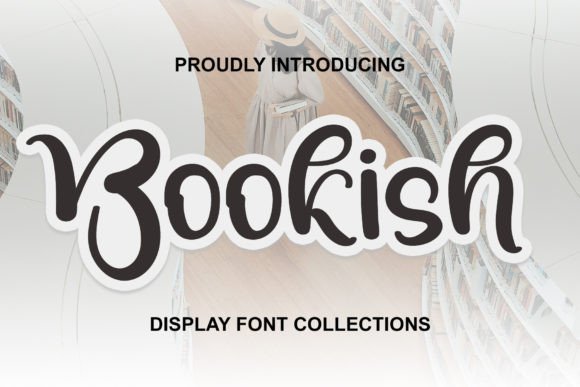
The Magic of the Holiday Season in Type
As I sat at my desk, surrounded by twinkling lights and the scent of freshly baked cookies, I couldn’t help but feel the excitement of the holiday season. It’s a time of year when creativity flows freely, and the possibilities are endless. That’s when I stumbled upon the perfect font to capture the essence of this magical time: Bookish Font.
With its playful, decorative elements and unique flair, Bookish Font is the perfect addition to any holiday project. Whether you’re designing greeting cards, gift labels, or holiday-themed decor, this font adds a touch of charm and nostalgia to your words. For designers, Bookish Font is a valuable asset, offering a festive and happy atmosphere that’s sure to delight your audience.
Bookish Font Key Features
- Font Family: Bookish is a modern script font designed to evoke a sense of elegance and sophistication.
- Character Count: The font contains 750+ glyphs, including Latin, Cyrillic, and Greek alphabets, as well as punctuation and symbols.
- Unique Characteristics: Bookish features a unique, handwritten feel with subtle flourishes and connections between letters, making it ideal for book covers, invitations, and other design projects that require a touch of personality.
Bookish Font Review
I recently had the chance to dive into the Bookish Font, and I must say it’s a unique find. The font has a certain charm that’s hard to resist.
- Unique blend of modern and vintage flair
- Excellent legibility, making it perfect for body text
- Supports a wide range of languages, including Cyrillic and Greek
- Has a great selection of weights and styles to choose from
Limited by ⚠️
- May not be the best choice for titles or headlines, as it’s a bit too playful
- Lack of italics and obliques might be a drawback for some designers
- May not be the most suitable font for digital use, due to its low x-height
Overall, the Bookish Font is a solid choice for designers looking for a unique, readable font. While it may have some limitations, it’s definitely worth considering for projects that require a touch of whimsy. With the right use, this font can add a lot of character to your designs.
To get the most out of Bookish Font, use it for:
- Book covers and book-related designs.
- Academic and research papers.
- Blog posts and articles with a vintage or literary feel.
Remember to pair Bookish Font with other fonts that complement its unique style for a visually appealing design.
Alternatives to Bookish Font
Playfair Display is an elegant, high-end serif font perfect for luxury brands, high-end fashion, or sophisticated publishing projects. It’s ideal for titles and headings where you want to make a statement. In comparison to Bookish Font, Playfair Display is more refined and luxurious, while Bookish Font is more vintage and literary.
Merriweather is a classic, traditional serif font that evokes a sense of timeless elegance. It’s suitable for academic, literary, or historical projects where a sense of authority and tradition is desired. Compared to Bookish Font, Merriweather is more straightforward and less ornate, but still conveys a sense of sophistication.
Didot is a luxurious, high-end serif font that’s perfect for fashion, luxury goods, or high-end publishing projects. It’s ideal for titles and headings where you want to create a sense of glamour and sophistication. In comparison to Bookish Font, Didot is more dramatic and eye-catching, while Bookish Font is more understated and literary.
Lato is a modern, sans-serif font that’s perfect for digital projects, such as websites, apps, or digital publications. It’s suitable for body text and headings where you want to create a sense of clarity and legibility. Compared to Bookish Font, Lato is more contemporary and minimalist, while Bookish Font is more vintage and traditional.